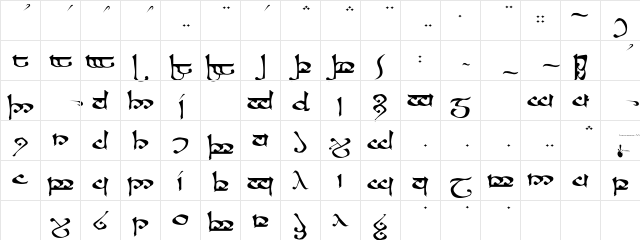
Moroma Regular Free Font
Moroma Regular
Moroma Family
Design Context for Moroma
Moroma is a composed and adaptable typeface that performs quietly and consistently across a wide range of design contexts.